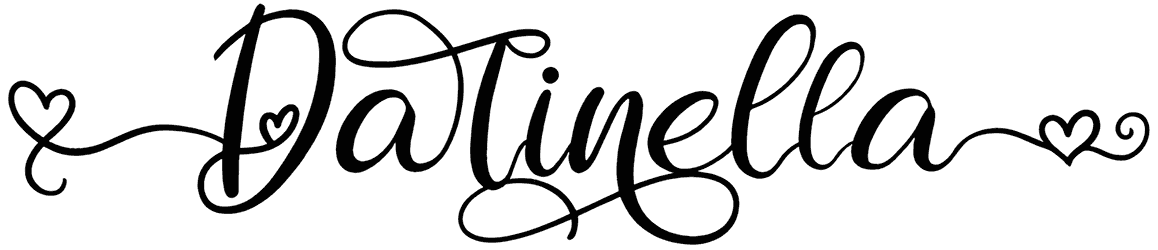
Darinella Font
If creating a sense of freshness, delicacy, softness, and precision really matter to you, it would be better to never overlook a calligraphy font such as Darinella that comes with a cursive design that dances along the baseline and is insanely perfect for any kind of professional purposes including movie posters, brochures, product packaging, menus, or illustrations.